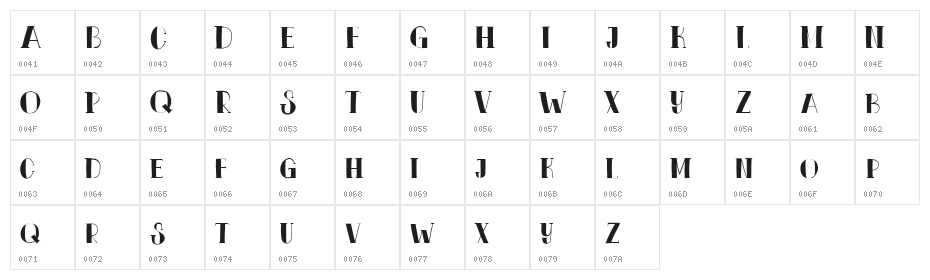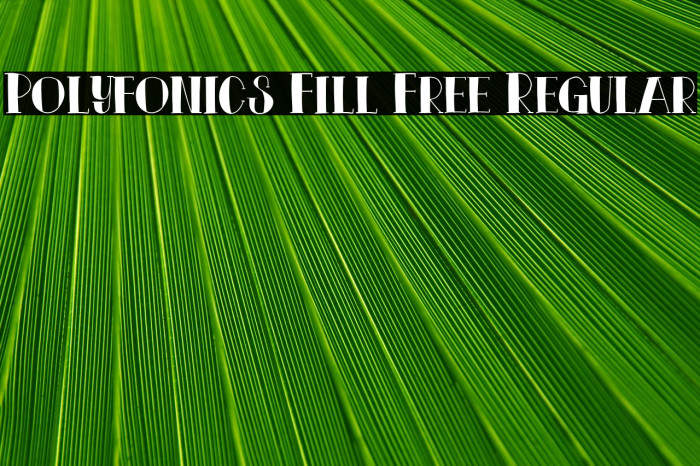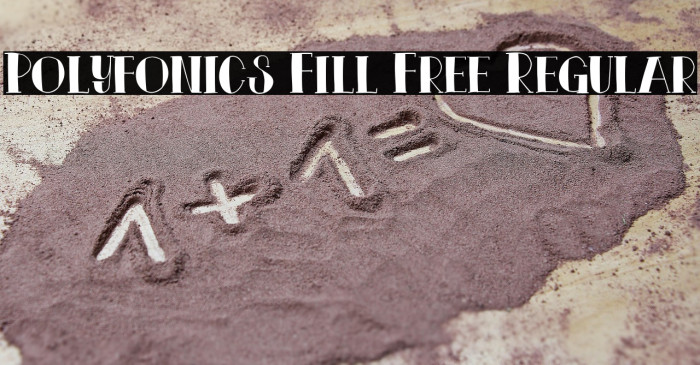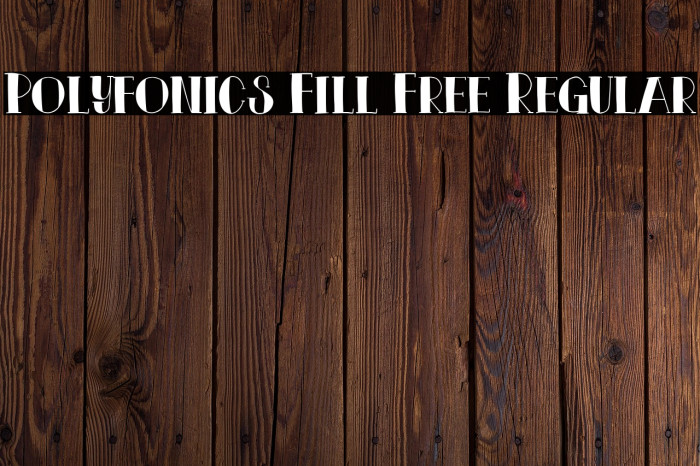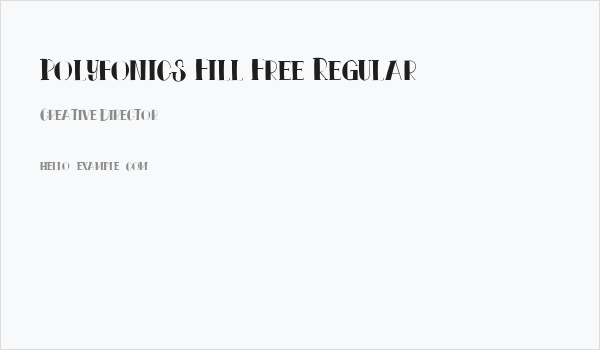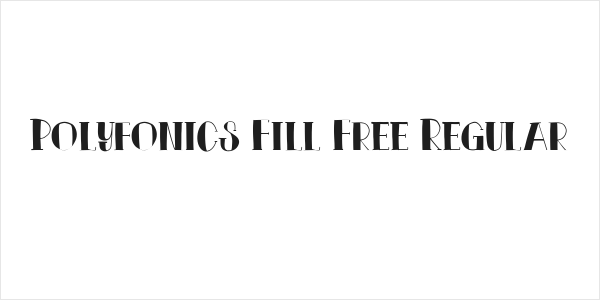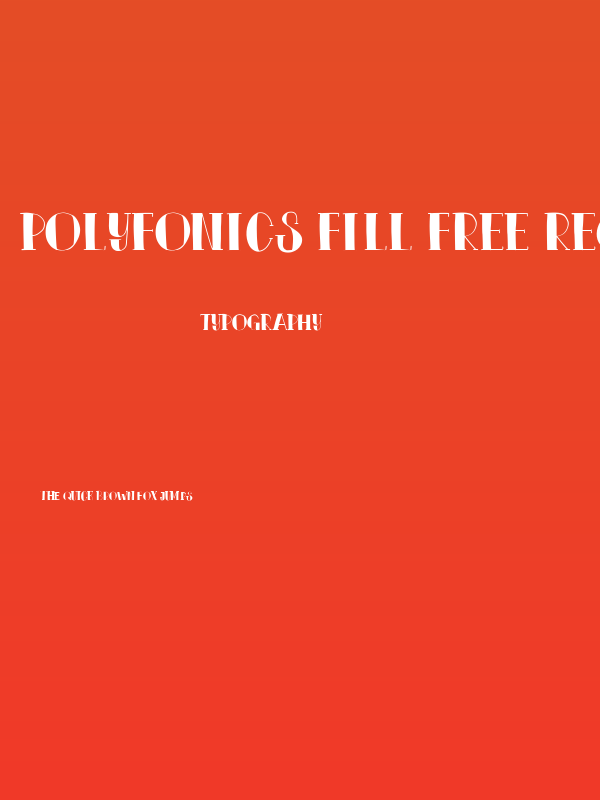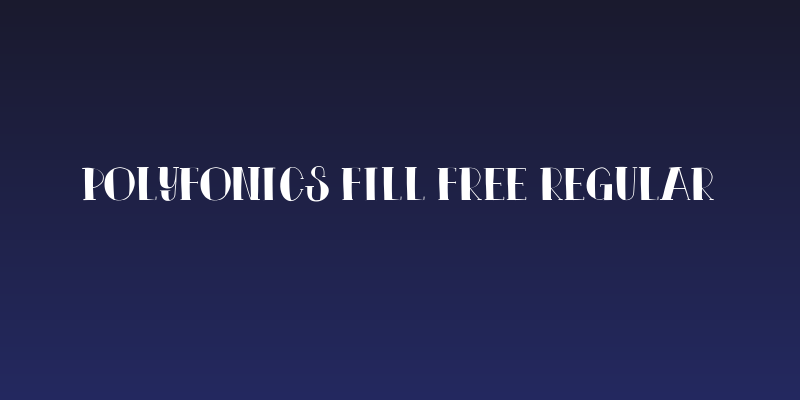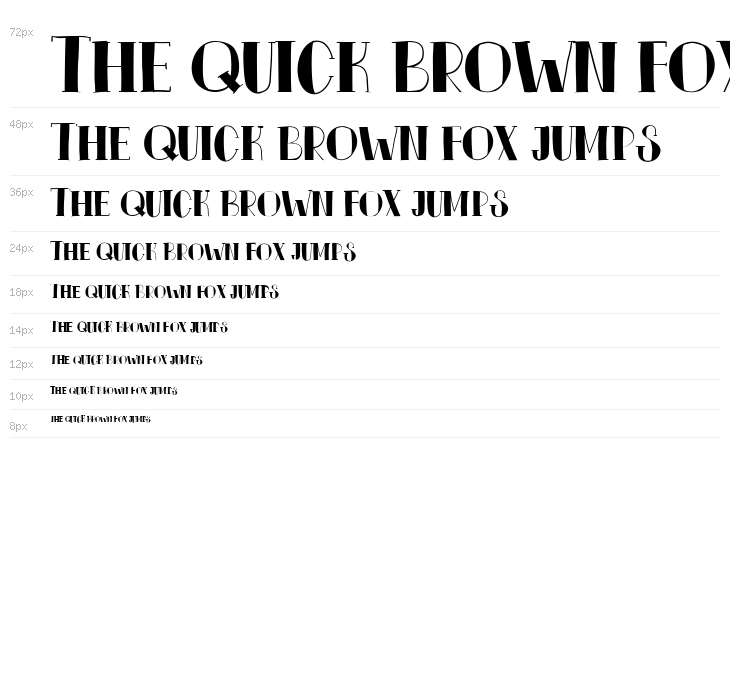
Polyfonics Fill Free Regular Font
Polyfonics Fill Free Regular Description
This font features a bold and artistic style with a unique blend of modern and vintage elements. The characters exhibit a playful yet sophisticated design, characterized by thick strokes and high contrast between thick and thin lines. The uppercase letters are particularly striking, with exaggerated serifs and a slightly condensed form that adds to their visual impact. The lowercase letters maintain the same stylistic elements, ensuring consistency across the typeface. This font's distinct appearance makes it suitable for creative projects that require a touch of elegance and flair.
| Width | Condensed |
| Overall Style | Modern, Vintage |
| Proposed Projects | Ideal for branding, poster design, book covers, and any project that requires a bold, artistic touch. |